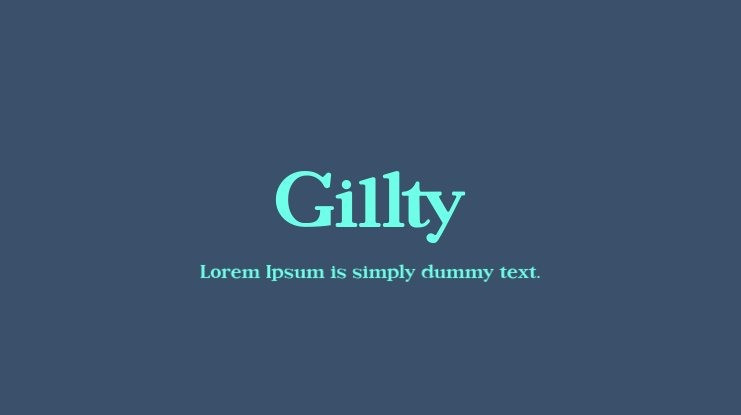
Gillty Font
Gillty Font is a collection of characters with a similar design. These characters include lowercase and uppercase letters, numbers, punctuation marks, and symbols.
Gillty fonts are designed to be simple and easy to read, while others are designed to add a unique style to the text. Gillty has a simple, modern look.